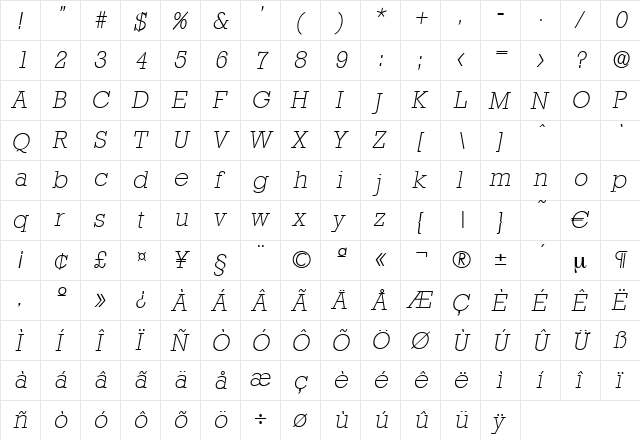
Stafford-XlightIta Regular Font Preview
Stafford-XlightIta Regular
Design Context for Stafford-XlightIta Typeface
Stafford-XlightIta is a composed and adaptable typeface that performs quietly and consistently across a wide range of design contexts. Its slender proportions lend an understated elegance to any composition.